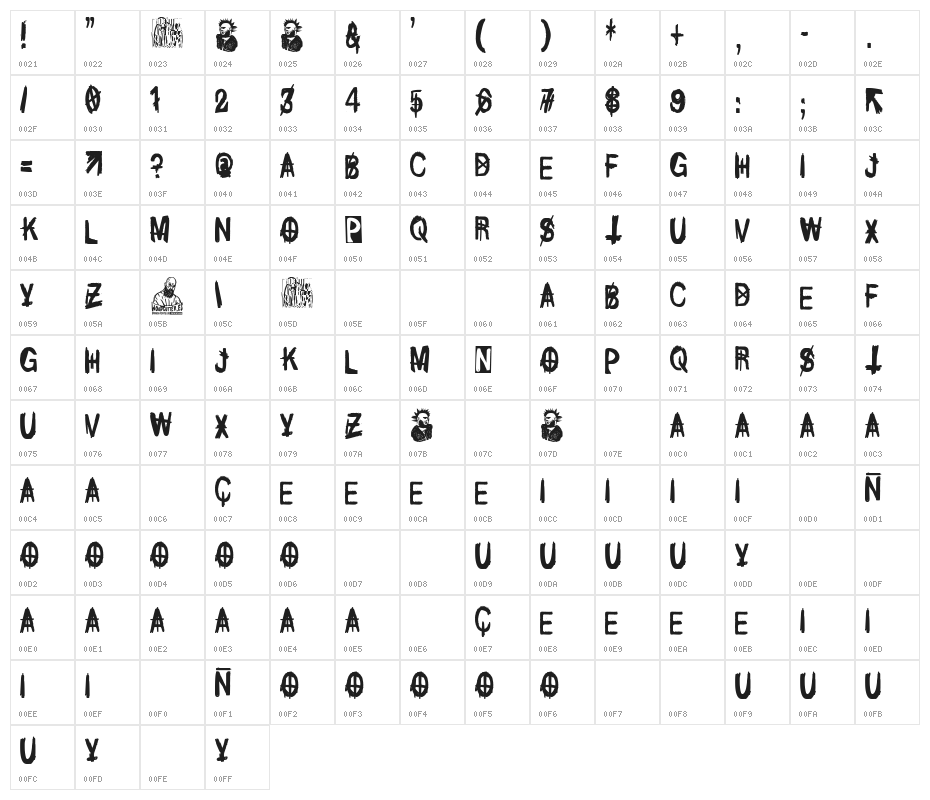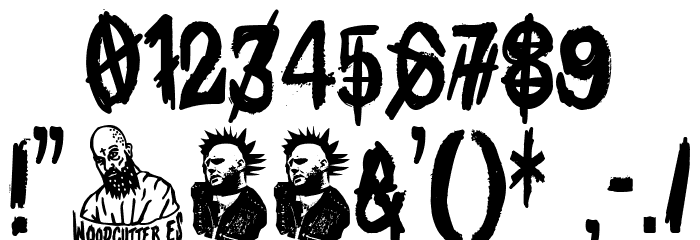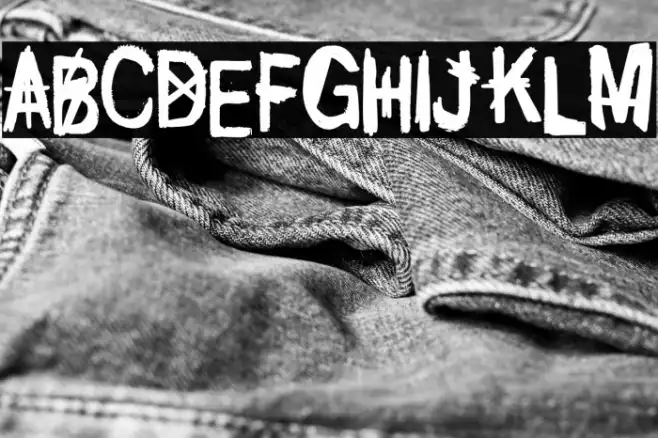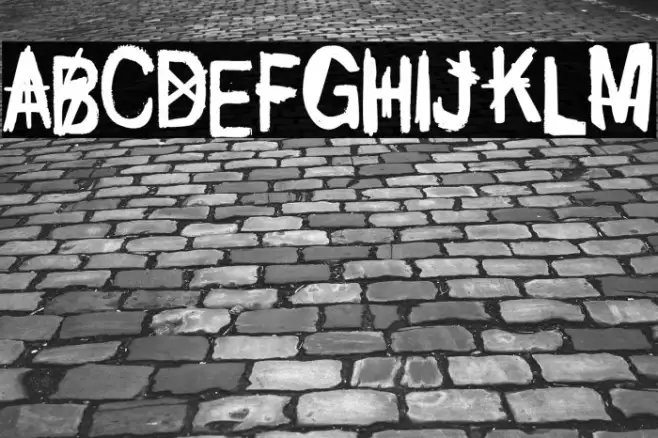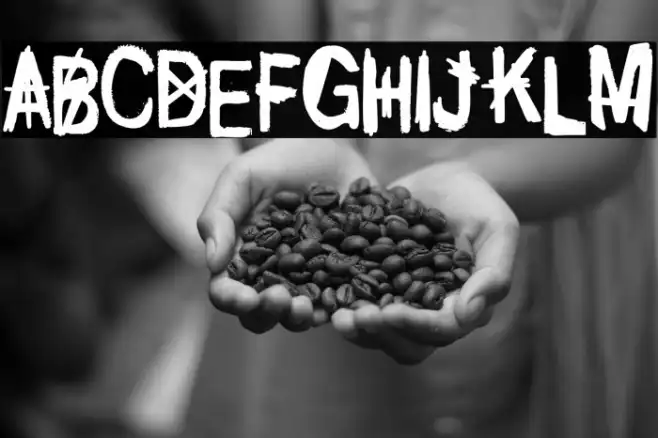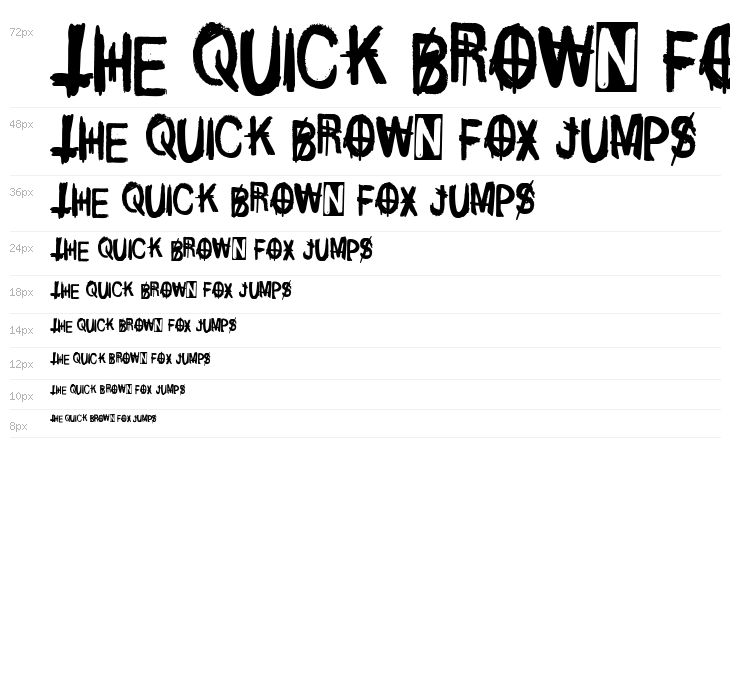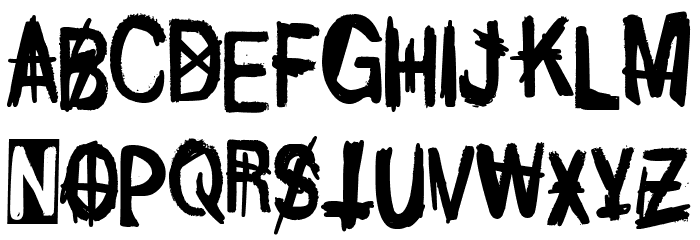
More Punk Than You Font
This font exudes a rebellious and edgy vibe, characterized by its rough, hand-drawn appearance. The letters are bold and irregular, with jagged edges and a distressed texture that gives them a gritty, urban feel. The font captures the essence of punk culture, with its chaotic and non-conformist style. The uppercase and lowercase letters maintain a consistent ruggedness, while the numbers and special characters are equally bold and expressive. This font is perfect for projects that aim to convey a sense of defiance and individuality.
| Overall Style | Punk, Urban, Rebellious |
| Use Case | Logos, Posters, Album Covers |
| Proposed Projects | Ideal for music album covers, band posters, streetwear branding, and any project seeking a gritty, rebellious aesthetic. |